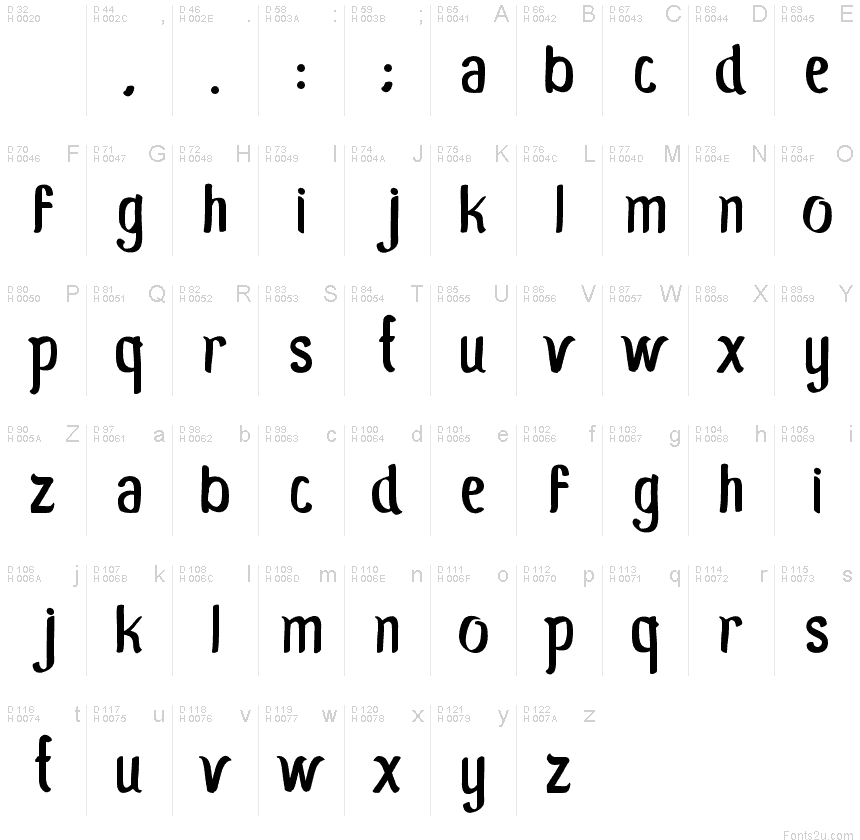
MoroSeneng from Adobe Systems Incorporated is a free Celtic display font with broad, softly uneven strokes. Its rounded letters have the lively proportions of informal uncial writing. Tall uprights and deep curves give the line a rolling, slightly mischievous rhythm.
It can lend a folk festival poster the warmth of hand-painted signage, yet also suit playful food packaging and pub branding. These friendly, irregular forms are especially apt for audiences drawn to craft traditions and lighthearted medieval themes.